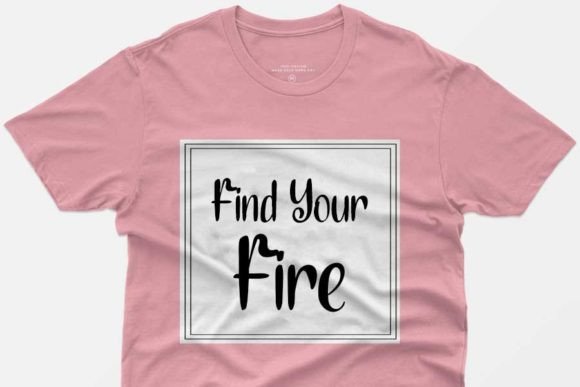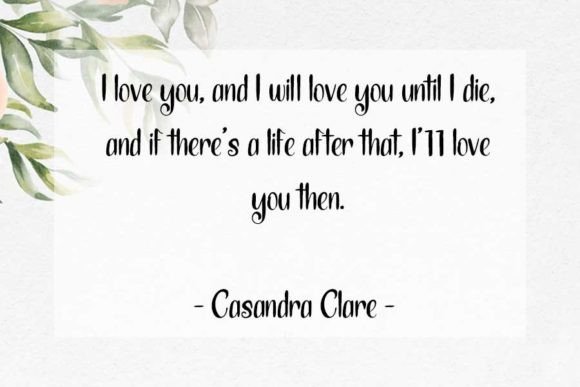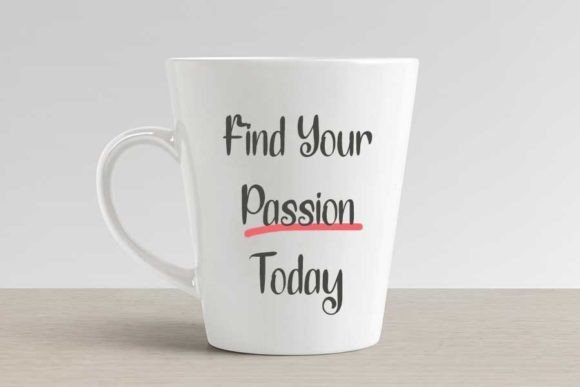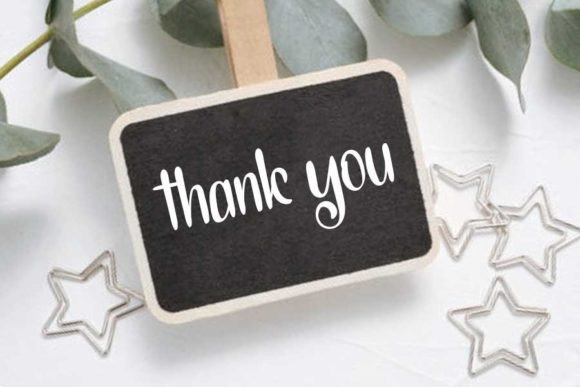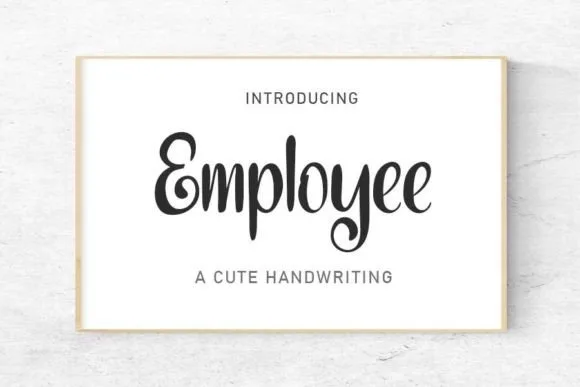
Employee Font: Elegant Handwriting for Sophisticated Designs
Employee is a flowing handwritten font known for its elegant and timeless style. This font’s graceful characters make it perfect for various design projects, allowing you to create visually captivating designs.
Key Features of Employee Font
- Elegant Style: Employee adds sophistication and personalization to your projects.
- Flowing Characters: The font mimics natural handwriting, adding authenticity to designs.
- Versatile Use: Suitable for both formal and creative applications.
Invitations and Stationery
Employee’s elegant style is ideal for creating sophisticated wedding invitations and other special event materials.
Use Employee to design refined logo designs and branding materials that convey professionalism and creativity.
Poster and Print Design
The font’s distinct look makes it perfect for creating eye-catching posters and print materials.
Why Choose Employee Font?
Employee offers more than just beautiful letters. Here’s why it stands out:
- Adds a human touch to digital designs
- Creates a deeper connection with the audience
- Offers timeless appeal that transcends design trends
By using Employee, you open up new design possibilities. Its elegant style works well in many contexts, from business cards to greeting cards. The font’s subtle variations and imperfections add depth to your designs, making them more engaging and memorable.
Creating a Cohesive Brand Identity
Employee’s versatility allows it to be used across various brand touchpoints, creating a cohesive and recognizable visual identity. From website headers to packaging design, this font ensures your brand maintains a consistent and sophisticated look.
If you’re looking for a font that combines elegance with versatility, Employee is an excellent choice. It’s perfect for adding a touch of sophistication to your work, especially for projects that need a personal yet professional feel.
Explore how Employee can transform your designs. From formal business materials to creative artistic projects, this font brings a timeless and refined quality to your creations.